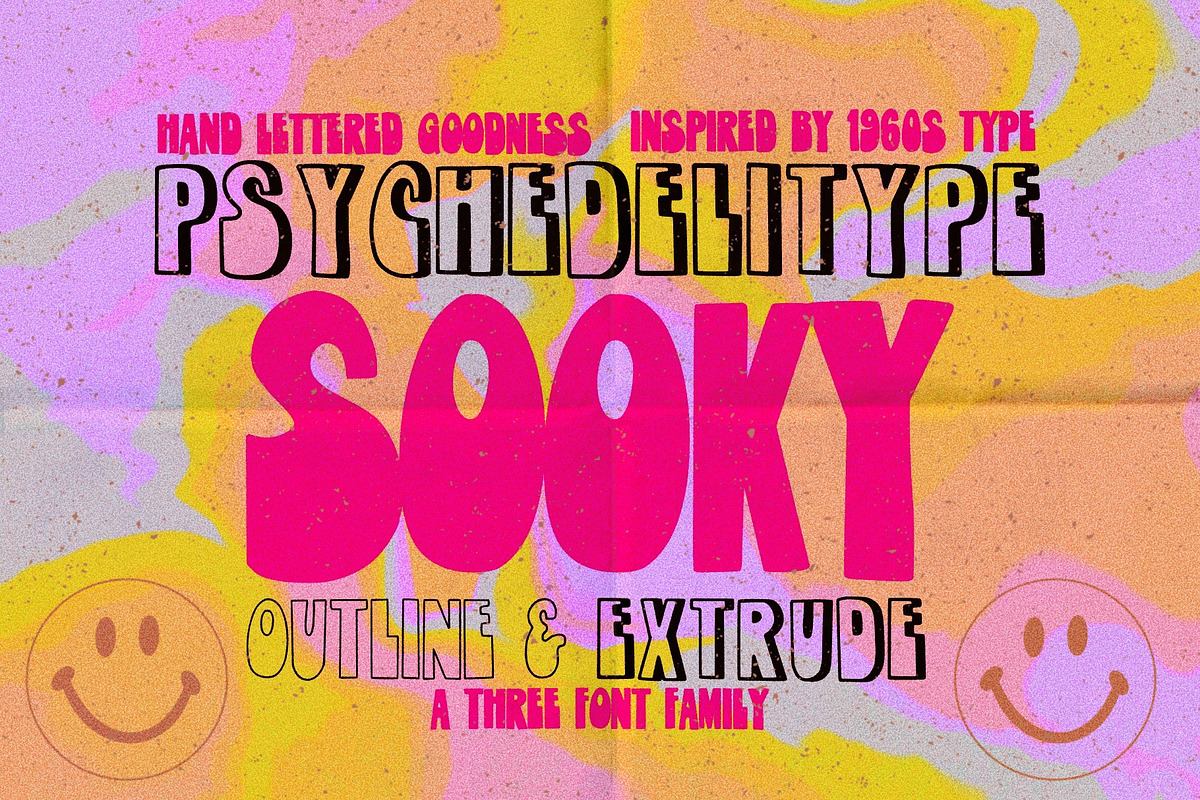
Psychedelitype Sooky - 3 Font Family Free Download is a bold and vibrant typeface family, inspired by psychedelic art and retro design. Featuring three unique fonts, it’s perfect for posters, album covers, branding, and creative visuals that demand attention. With its fluid lines and colorful personality, this family brings a fun, energetic vibe to any project. Please note that you must purchase this font for commercial use, but it is available as a free download for testing purposes. Add a touch of psychedelic flair to your designs with Psychedelitype Sooky - 3 Font Family Free Download.